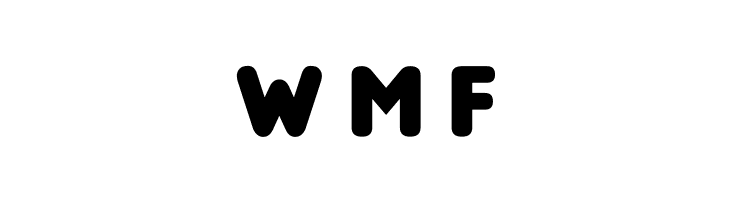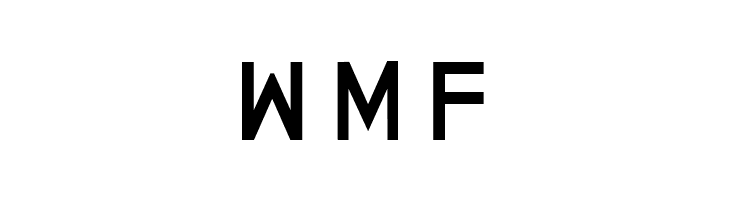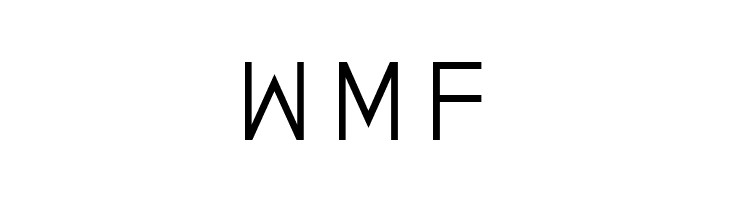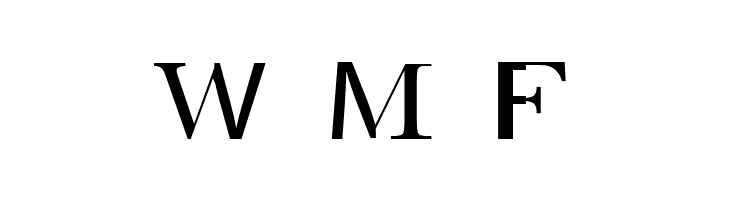
A bold, rounded font with a playful and approachable style.
A bold, rounded font with a playful and friendly appearance.
A bold, italicized font with a dynamic and modern style.
A bold, geometric font with strong, angular lines and a modern, assertive style.
A playful, energetic font with tall, narrow letters and a slight slant.
A bold, geometric font with a modern, digital aesthetic.
A geometric, angular font with a modern and technical style.
A bold, geometric font with strong, angular lines and a modern aesthetic.
A dynamic, modern italic font with sharp, angular lines and a forward-leaning posture.
A serif font with a blend of classic and modern elements, featuring distinct serifs and moderate contrast.